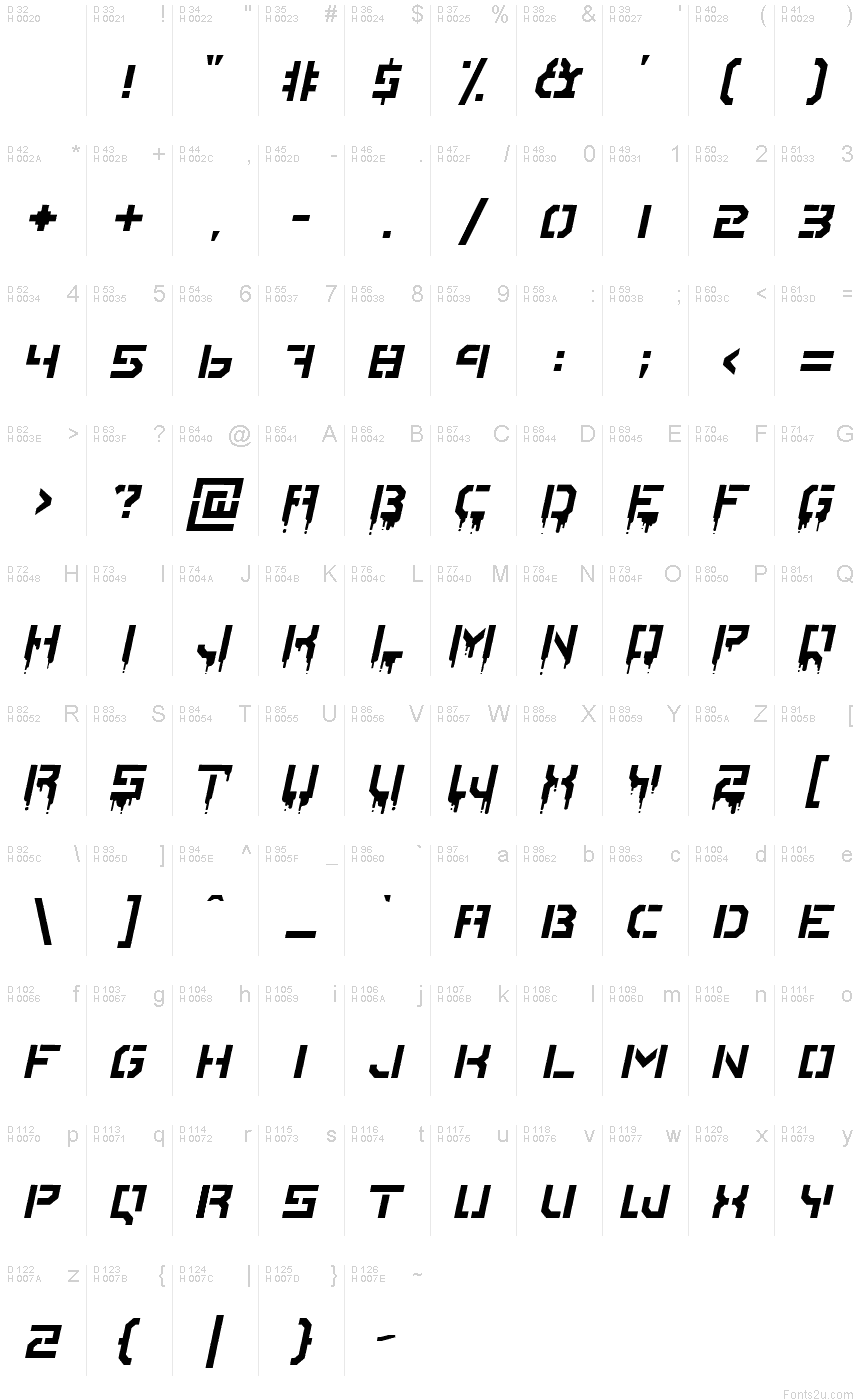
StencileOrDie Italic
StencileOrDie Italic by Fontourist RWE is a free futuristic stencil display font with broad and sharply slanted letters. Hard diagonal cuts and broken joins carve the blocky forms into mechanical pieces, with pointed corners adding speed and tension.
Game title graphics are its strongest use since the fractured construction resembles armor plating or an industrial interface. The same aggressive geometry can drive esports branding, action-film posters, and streetwear merchandise, all linked by themes of machinery, combat, and high-speed technology.